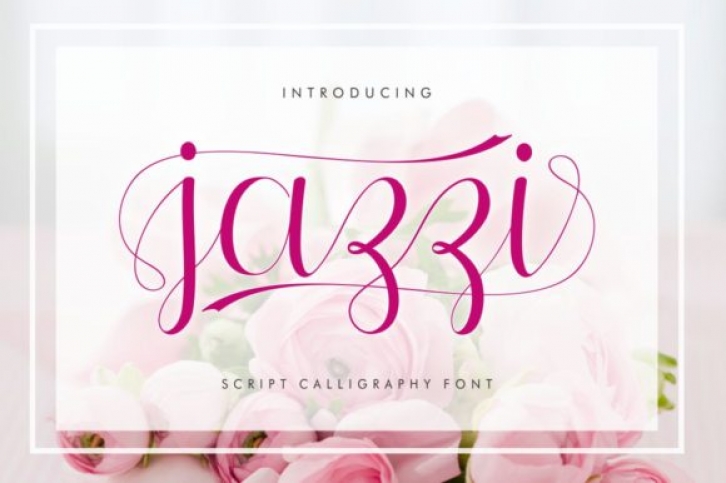
Jazzi is a beautiful, joyful and smooth handwritten font. It looks stunning on wedding invitations, thank you cards, quotes, greeting cards, logos, business cards and every other design which needs a handwritten touch.